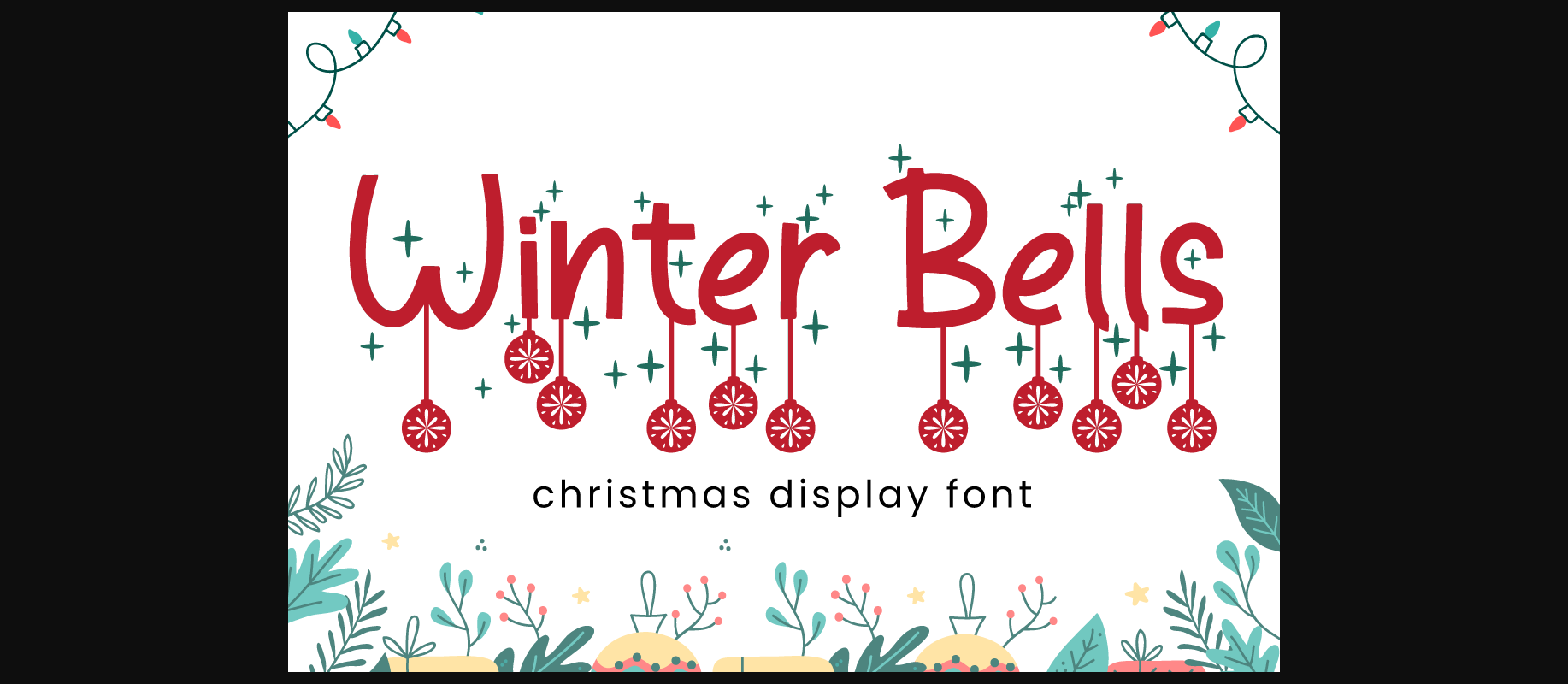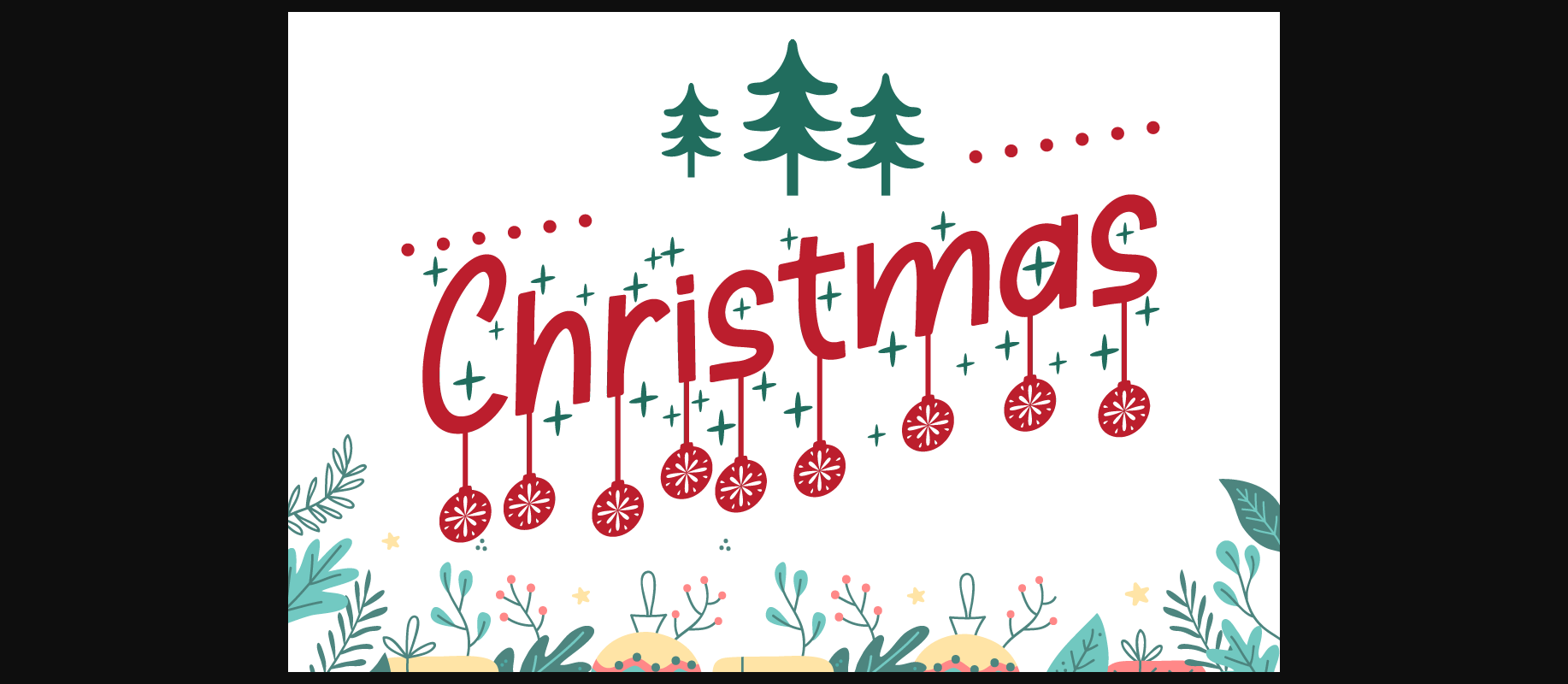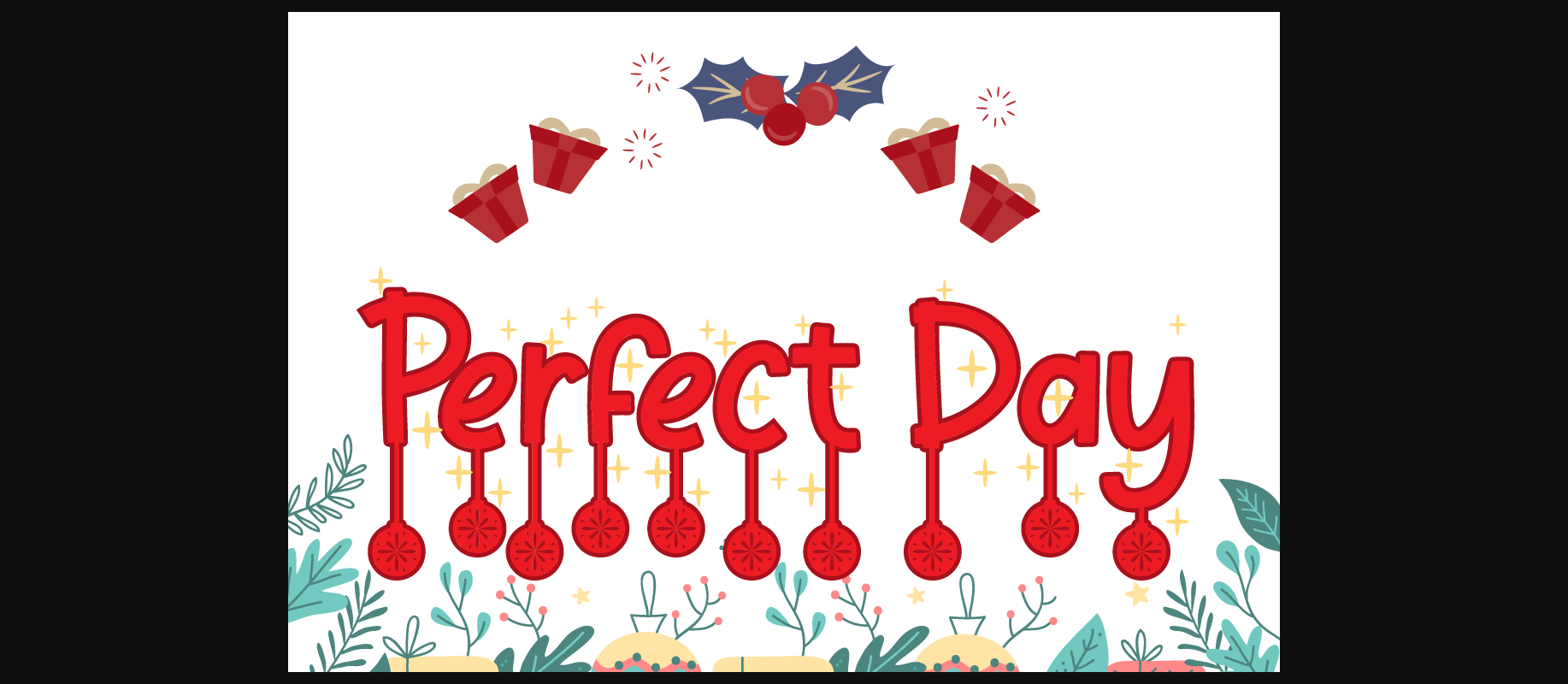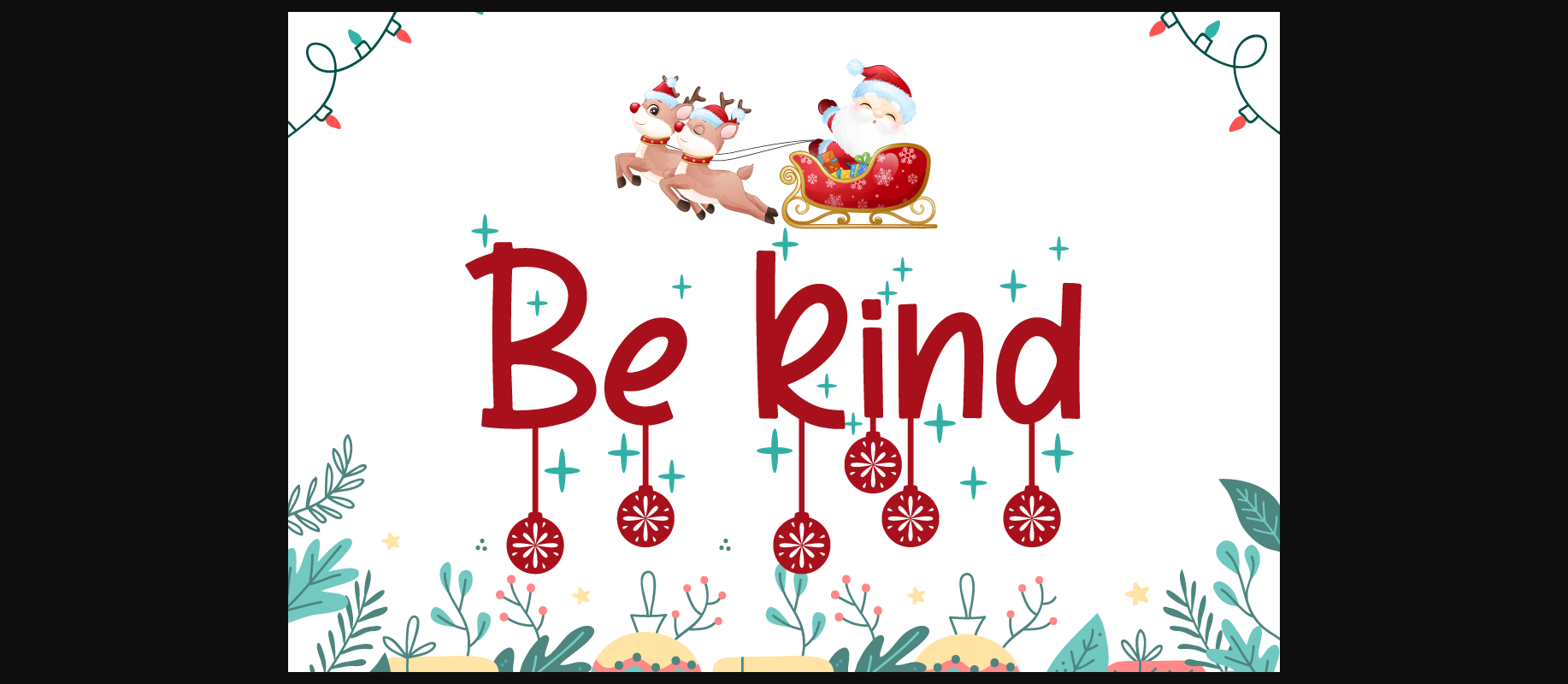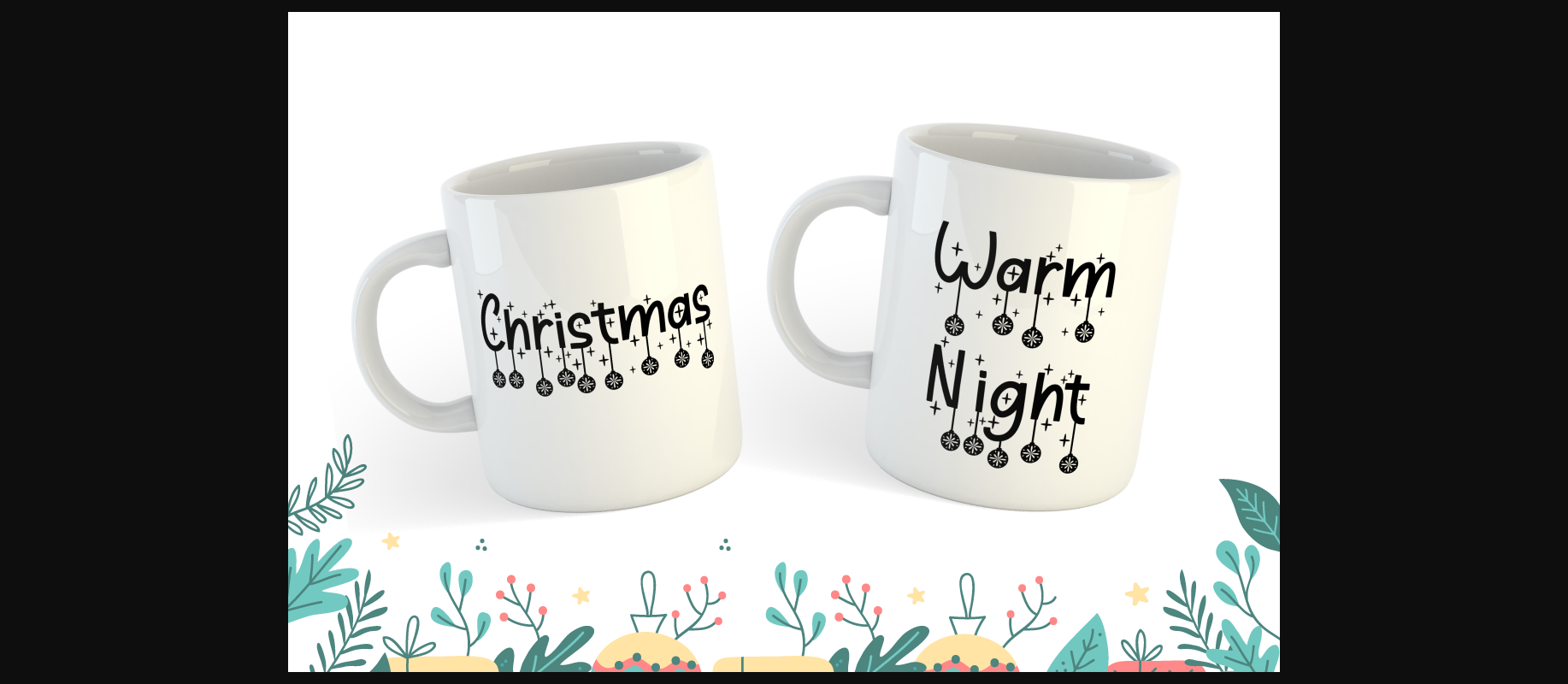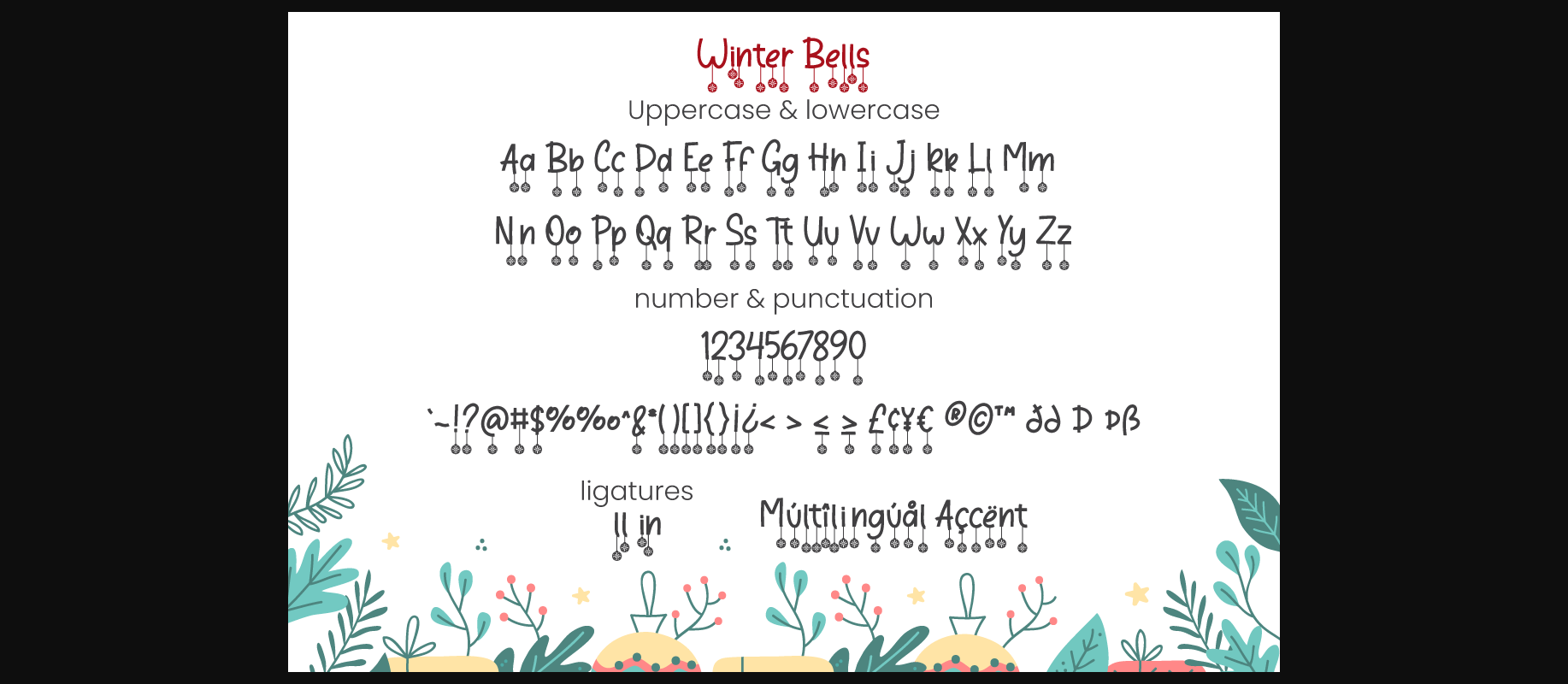
Winter Bells Font
About Winter Bells Font
Winter Bells is a delicate and incredibly distinct decorative font, featuring bells as ornaments. It is perfect for Christmas promotion and design. Add it to your most creative ideas and notice how it makes them come alive!